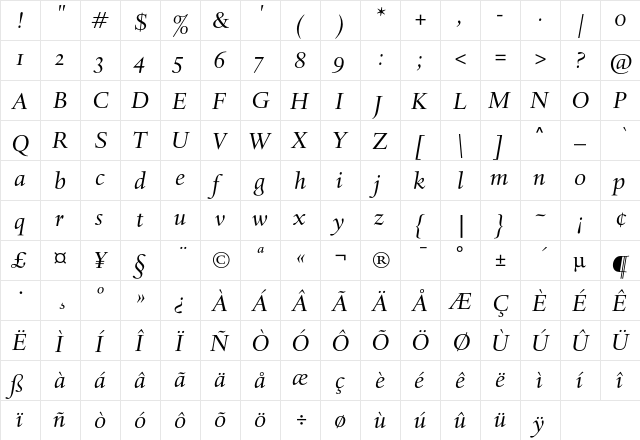
DTLHaarlemmerSD Italic Font Preview
DTLHaarlemmerSD Italic
Design Context for DTLHaarlemmerSD Typeface
DTLHaarlemmerSD offers clean, dependable letterforms without strong stylistic allegiance, making it a practical choice for designers who need flexibility. The dynamic lean of this cut emphasises speed and emphasis in any layout.
Pro Tip: Try DTLHaarlemmerSD for annotation and caption copy alongside an upright companion — the contrast in angle creates a dynamic but ordered typographic system.